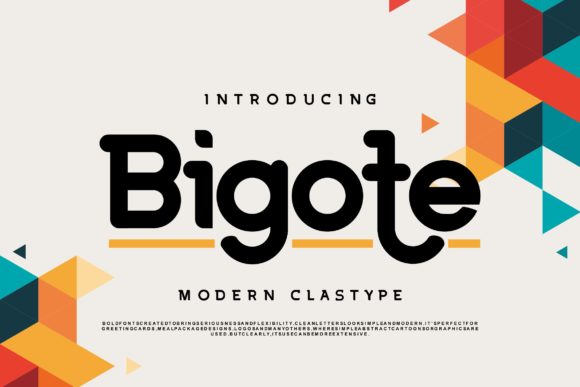
Introducing Bigote Font: Elevate Your Designs with a Simple yet Striking Display Font
In the world of typography, a font can make or break a design. It’s the foundation upon which creativity is built, and the right choice can elevate a project from ordinary to extraordinary. For designers and crafters looking to add a touch of simplicity and sophistication to their work, Bigote Font is an excellent choice. This lettered display font is designed to make your creative ideas stand out, and in this article, we’ll explore what makes Bigote Font a must-have in your typography arsenal.
What is Bigote Font?
Bigote is a simple and neat lettered display font that packs a punch. Its clean lines and straightforward design make it an incredibly versatile font, suitable for a wide range of projects. Whether you’re working on a logo, a poster, a website header, or any other design that requires a bold yet elegant touch, Bigote Font is up to the task.
Key Features of Bigote Font
- Simplicity: The beauty of Bigote lies in its simplicity. The font’s clean and uncluttered design ensures that your message is delivered clearly and effectively.
- Neat Lettering: Each letter is carefully crafted to ensure that the font looks neat and organized, making it perfect for titles, headings, and any place you want to draw attention.
- Versatility: Bigote Font can be used in various design contexts, from digital media like websites and social media graphics to print materials such as brochures and posters.
- Elegance: Despite its simplicity, Bigote Font carries an air of elegance that can elevate the overall look of your design.
How to Use Bigote Font in Your Designs
Incorporating Bigote Font into your projects is straightforward. Here are a few ideas to get you started:
- Logos and Branding: Use Bigote Font to create a memorable logo or to enhance your brand’s typography. Its simplicity and elegance make it an excellent choice for businesses looking for a clean and professional image.
- Posters and Flyers: Add a bold yet refined touch to your promotional materials. Bigote Font can serve as a headline font that captures attention and communicates your message effectively.
- Web Design: Enhance your website’s headers, titles, and call-to-action buttons with Bigote Font. Its readability on both desktop and mobile devices makes it an excellent choice for digital projects.
- Crafting and DIY Projects: If you’re into crafting or DIY projects, Bigote Font can be used in various creative ways, such as on handmade cards, scrapbooking, or any project that requires a personal touch.
Why Choose Bigote Font?
With so many fonts available, why choose Bigote? The answer lies in its unique blend of simplicity, elegance, and versatility. Bigote Font is not just a typeface; it’s a design solution that can adapt to various creative needs. Its simplicity ensures that it pairs well with a wide range of other fonts, allowing you to experiment with different typography combinations.
Bigote Font is a powerful tool for designers and crafters looking to add a touch of sophistication and simplicity to their projects. Its neat lettering, elegance, and versatility make it an excellent addition to any creative toolkit. Whether you’re working on a professional project or a personal craft, Bigote Font can help you achieve your design goals with style. So, why not give Bigote Font a try and see how it can make your creative ideas stand out?
Explore the possibilities of Bigote Font today and discover a world of typographic possibilities that are simple, yet strikingly effective.